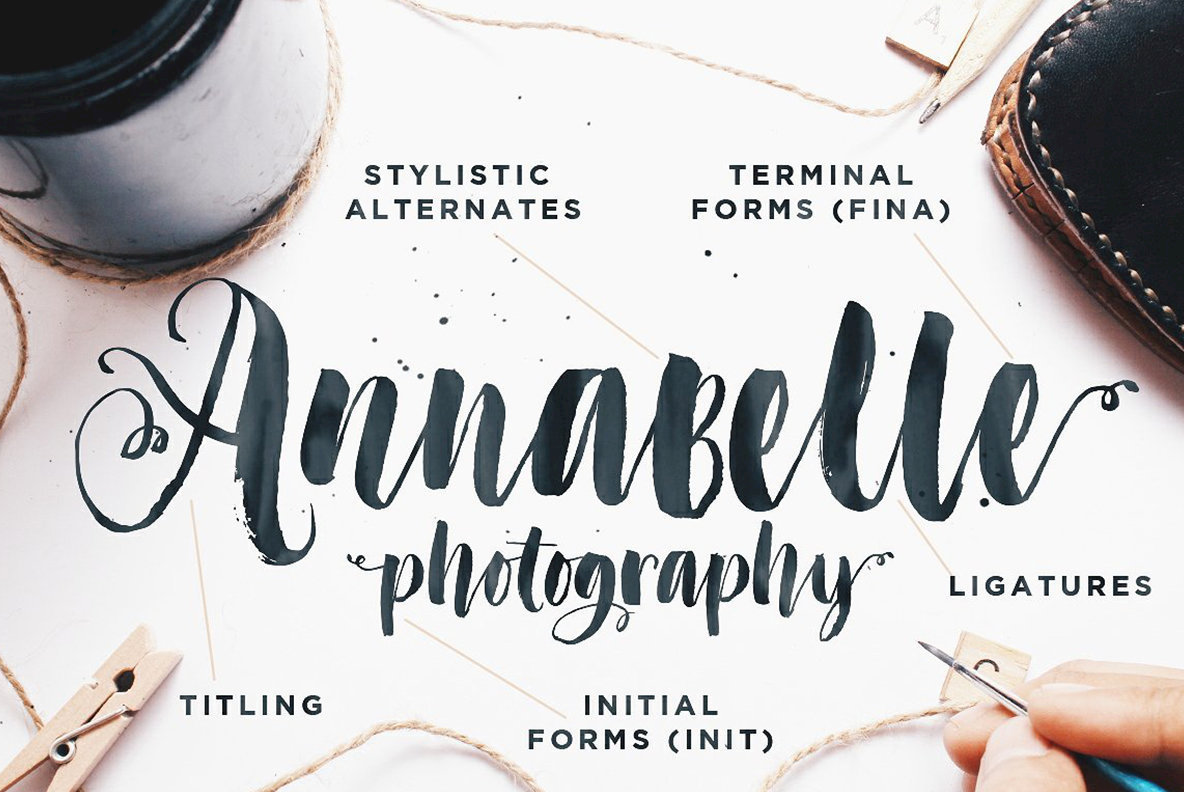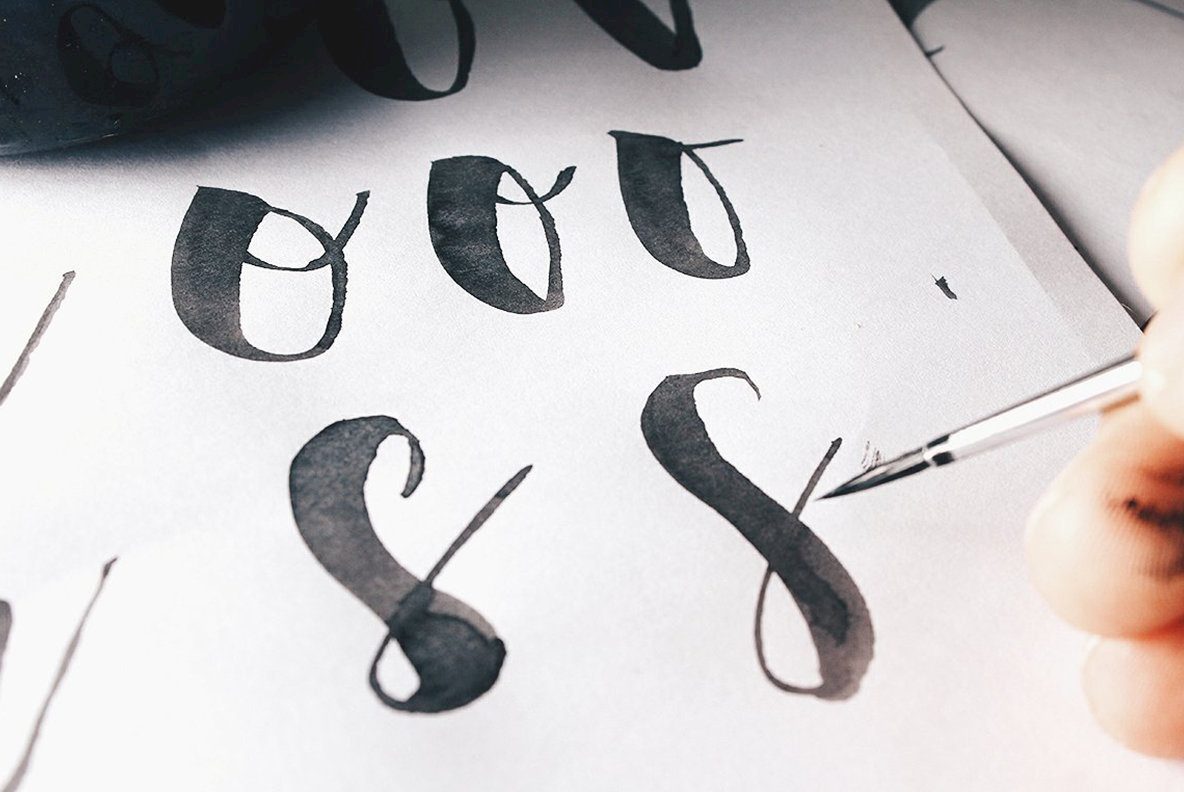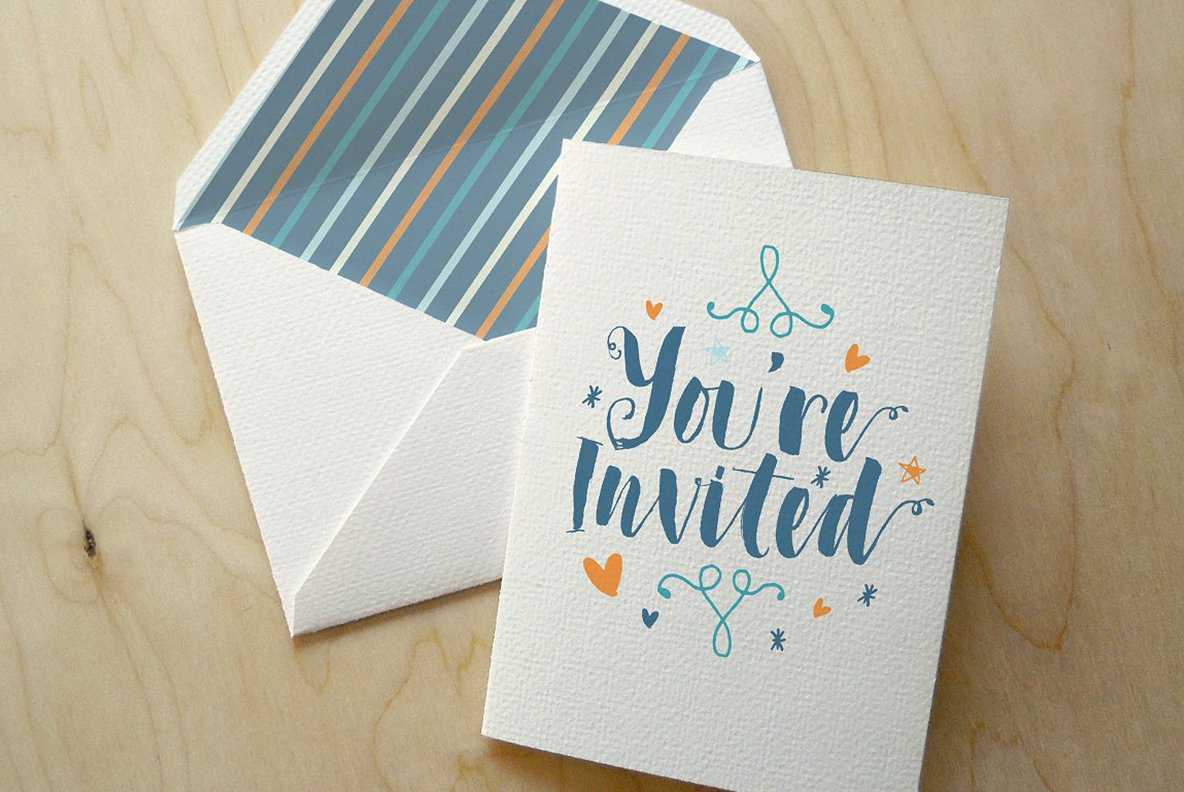
Introducing Don't Click Me, a thick and thin style handwritten brush and ink font to makes you addicted more and more on it. Cause i feel pretty addicted to these kinda font lately :)
Its the most complex font that i've ever made, contains so many features and style that you'll see soon after this introducing line.
1) Don't Click Me : a brush and ink font that 100% handwritten straight from the paper to fulfil your "handmade feels" needs, it comes with so many Opentype Features such as :
Titling : a fancy and big uppercase to make your headline or title shouts better.
Stylistic Alternates : just in case you doesn't like the standard letters looks, there's always a better options for you.
Initial and Terminal Forms : you still can shine with an lowercase too, Initial Forms are a lowercase with swirl at the front to open the words, and so the Terminal Forms are a lowercase with a swirl at the end of the word.
Ligatures : an auto-changer for double letters so it doesn't looks the same, to maintain the handwriting feels, and there's a special ligature on letter "g" and "y" too, you'll love it.
Multilingual Support : All the letters inside are displayed in the preview of characters set, if your language letter needs doesn't there, it doesn't support your language.